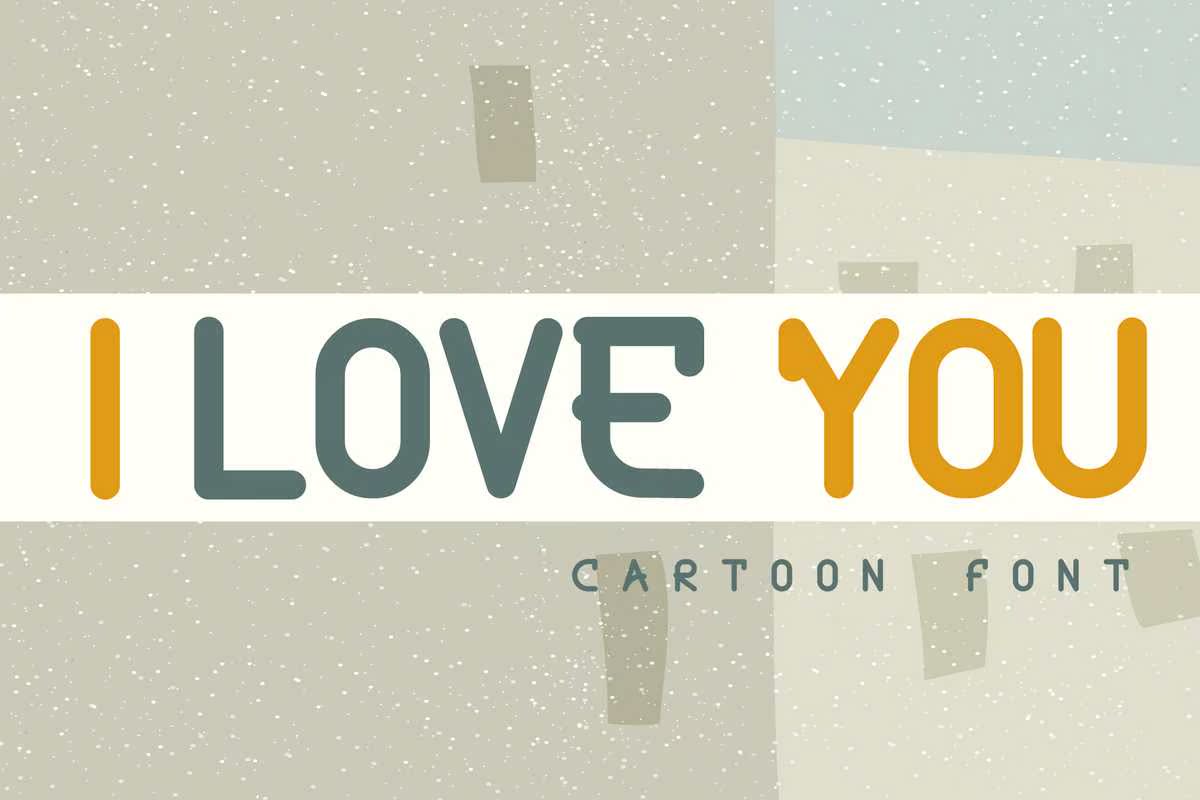
GoostBoldCartonWinterFont.SetofMulticoloredBrightLetters刷新说明和YourDesign.VectorillInstruction.Isolatedonwhitebackground.GoostBoldCartonWinterFont.SetofMulticoloredBrightLetters刷新说明和YourDesign.VectorillInstruction.Isolatedonwhitebackground。